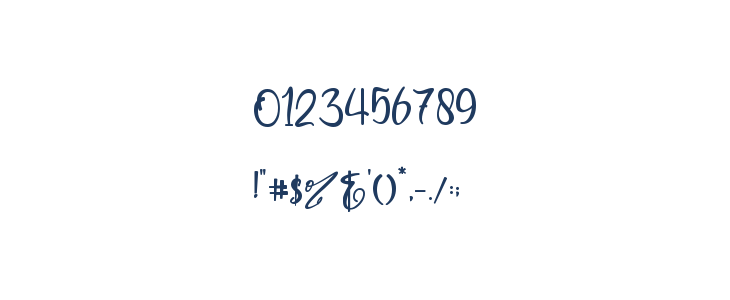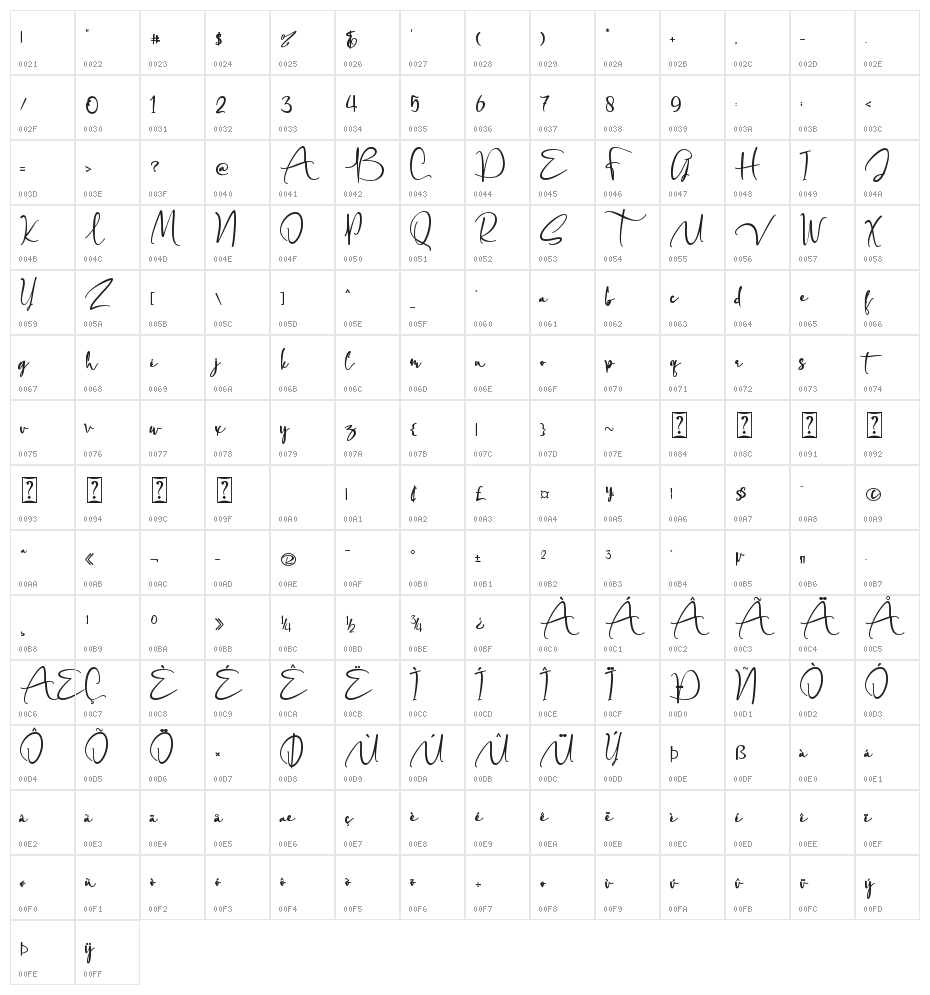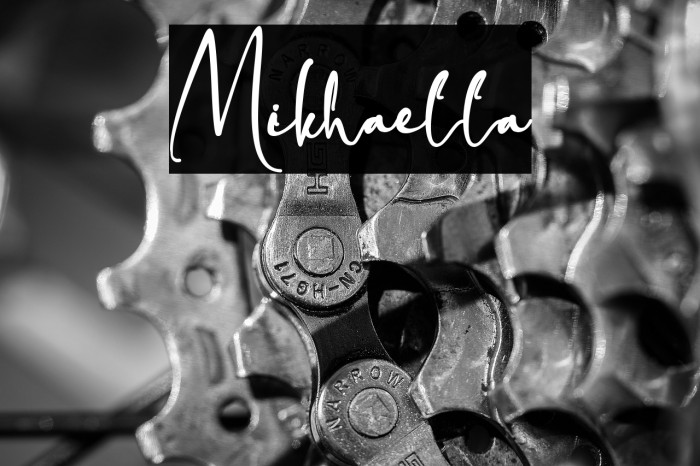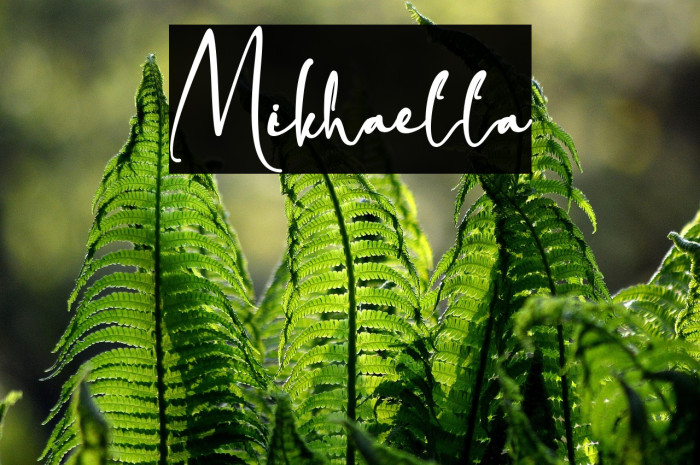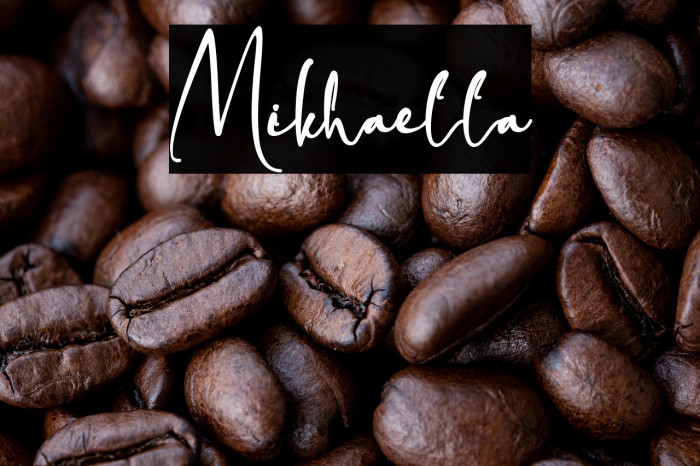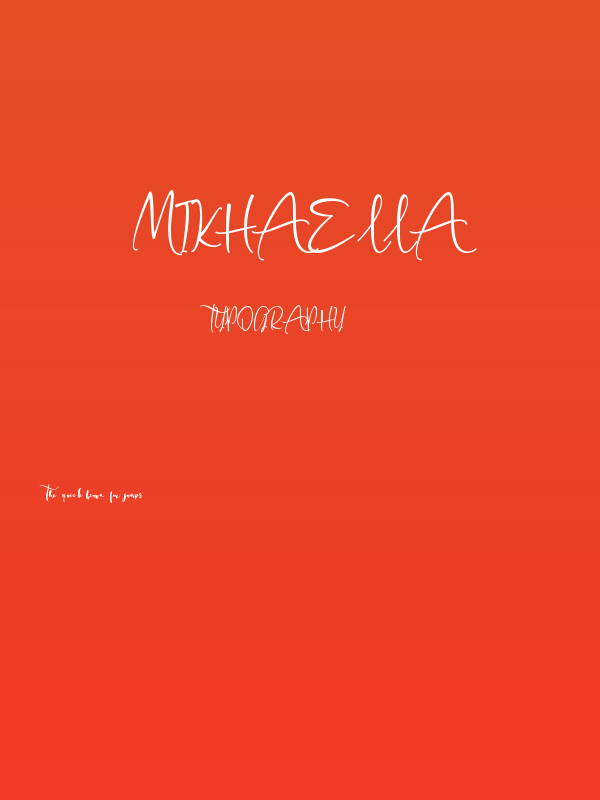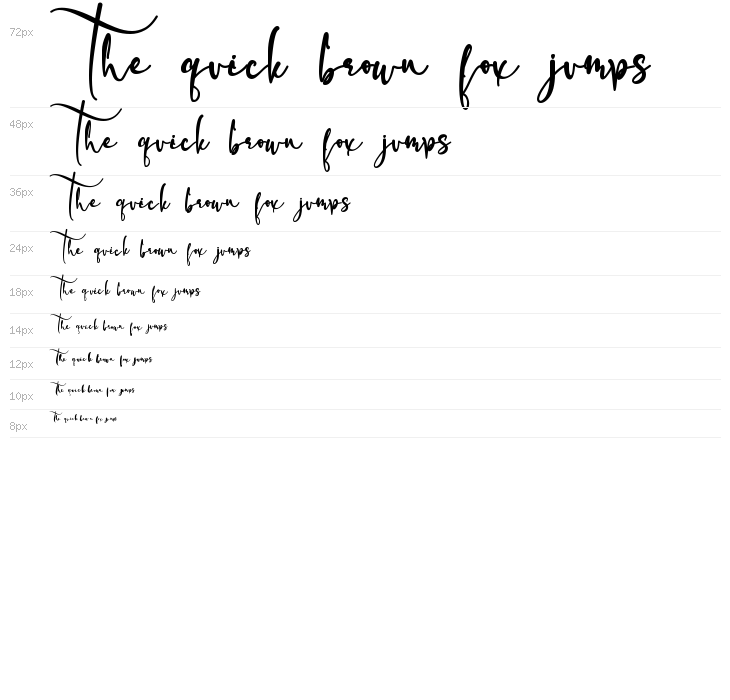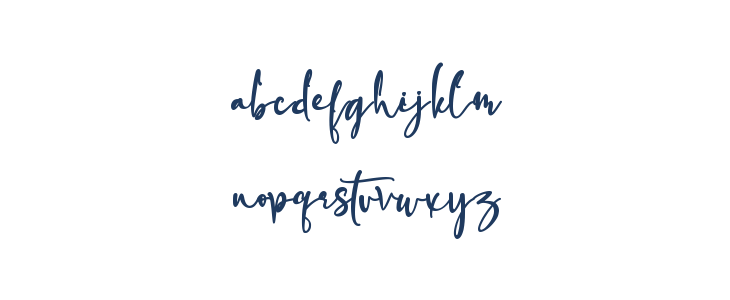
Mikhaella Font
Mikhaella Description
This font features a dynamic and flowing script style, characterized by its elegant and cursive letterforms. The uppercase letters are tall and slightly slanted, with smooth curves and varying stroke widths that add a sense of movement and grace. The lowercase letters maintain a consistent style, with some letters featuring loops and flourishes that enhance the overall decorative appearance. The numerals are bold and rounded, complementing the script style. Special characters are designed to match the fluidity of the alphabet, making this font suitable for creative and artistic projects.
| Use Case | Logos, Invitations, Decorative text |
| Proposed Projects | Ideal for wedding invitations, branding, greeting cards, and other creative projects that require a touch of elegance and sophistication. |